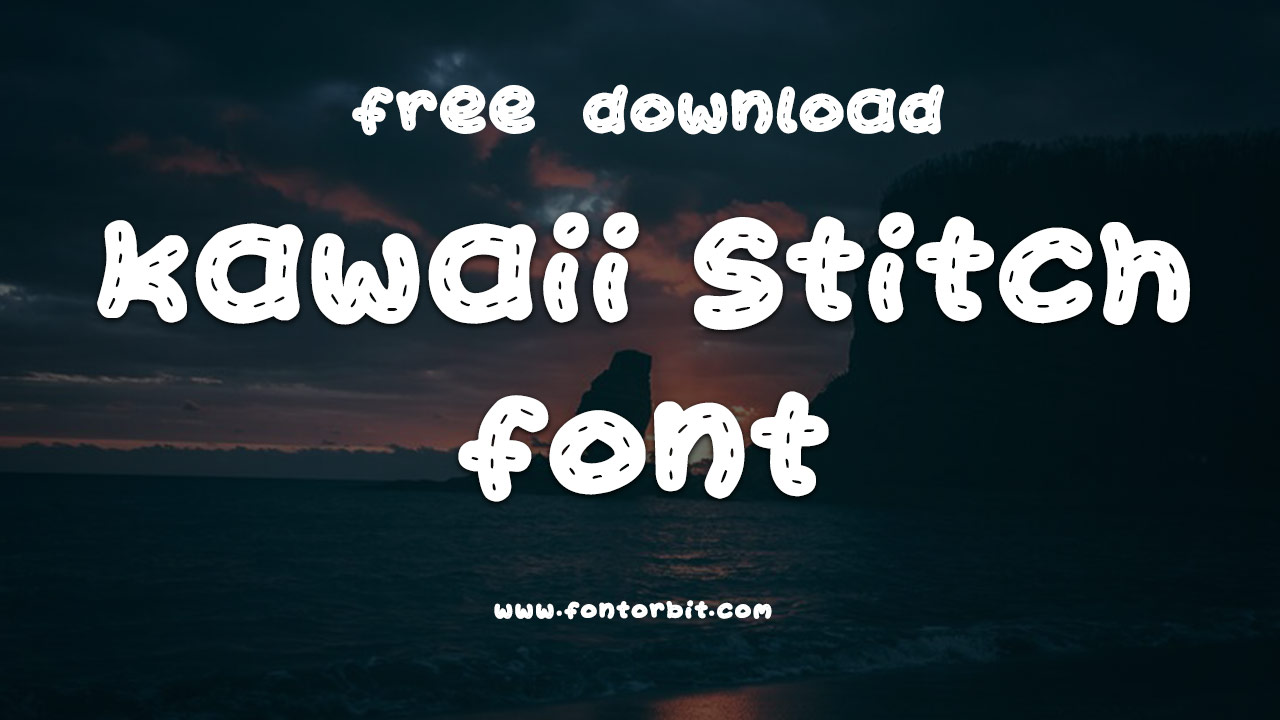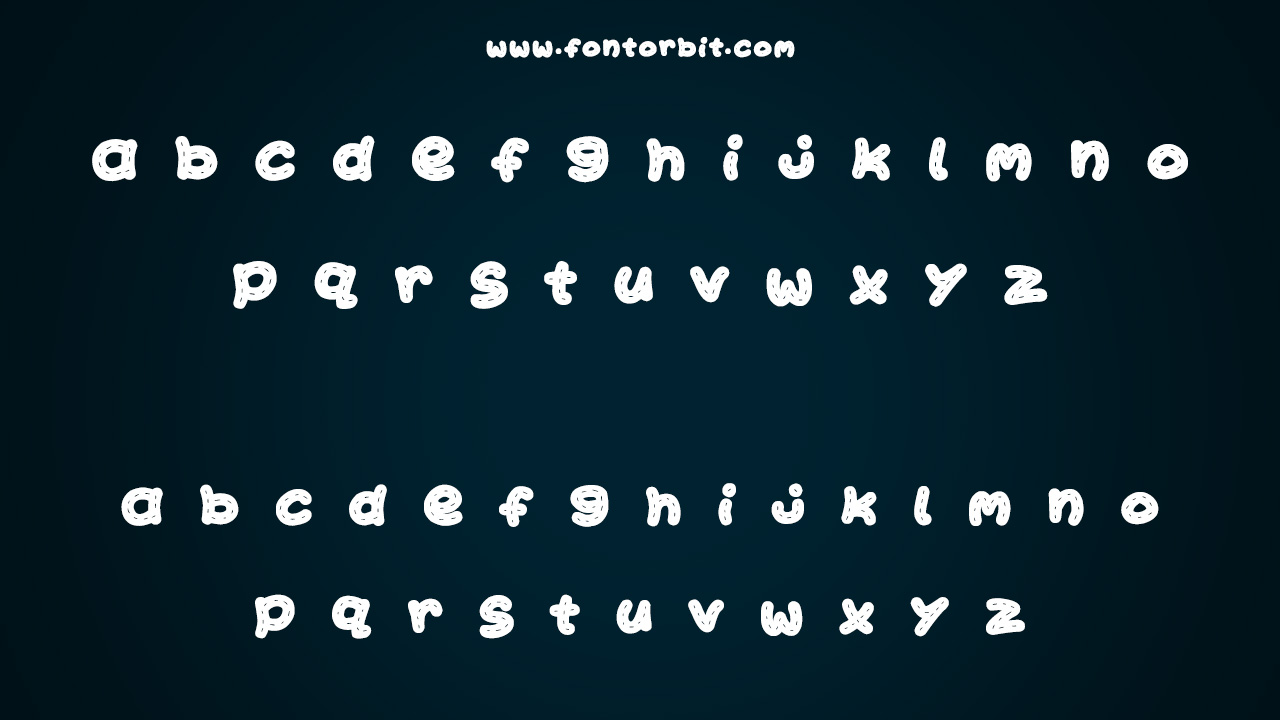
Kawaii Stitch Font is a charming and playful fancy display typeface designed by Darrell Flood from Hawtpixel.
Known for its cute, handcrafted appearance, Kawaii Stitch adds a whimsical touch to any design project. This font is available for free for personal use and is perfect for anyone looking to add a delightful and unique style to their work.
Kawaii Stitch Font is beloved for its legible yet playful design. With a fun, stitched appearance, it is an excellent choice for creating creative, eye-catching designs. The font family includes:
Notable Uses Of The Font:
Kawaii Stitch’s adorable and whimsical design makes it an ideal choice for a variety of projects that aim to evoke a cute, playful, or imaginative aesthetic. Its handcrafted feel works beautifully in creative, lighthearted designs. Whether you are working on personal or professional projects, this font adds character and a joyful touch. Ideal uses include:
- Wedding Invitations
- Party Invitations
- Children’s Book Covers
- Banners
- Product Packaging
Kawaii Stitch Font is a delightful and versatile typeface with a handcrafted aesthetic. Whether you’re working on personal invitations, playful branding, or creative posters, its charming, stitched appearance adds a unique touch that will captivate your audience.
1.Is Kawaii Stitch Font Suitable For Both Headings And Body Text?
Due to its playful and slightly intricate design, Kawaii Stitch Font is best suited for headings, titles, or short phrases where its unique style can stand out. However, it may not be ideal for long blocks of body text.
2.What Is The Difference Between Kawaii Stitch Font And Other Fancy Fonts?
Kawaii Stitch Font is unique in its hand-drawn, stitched appearance. While other fancy fonts may focus on elegance or formality, Kawaii Stitch offers a whimsical, lighthearted touch.
3.What Are The Popular Uses Of Kawaii Stitch Font?
Kawaii Stitch is popular for projects like wedding and party invitations, banners, children’s books, and product packaging, where a fun and delightful aesthetic is desired.
4.What Are The Design Principles Behind Kawaii Stitch Font?
The design of Kawaii Stitch emphasizes playfulness, simplicity, and handcrafted charm. It features a stitched texture that mimics a hand-sewn look, creating a unique visual interest while maintaining legibility.
5.What Is The Color Palette Used With Kawaii Stitch Font?
Kawaii Stitch Font does not have a specific color palette. Still, it pairs beautifully with pastel tones, bright and cheerful colors, or any palette that complements its cute and whimsical design. For maximum effect, use high-contrast colors.